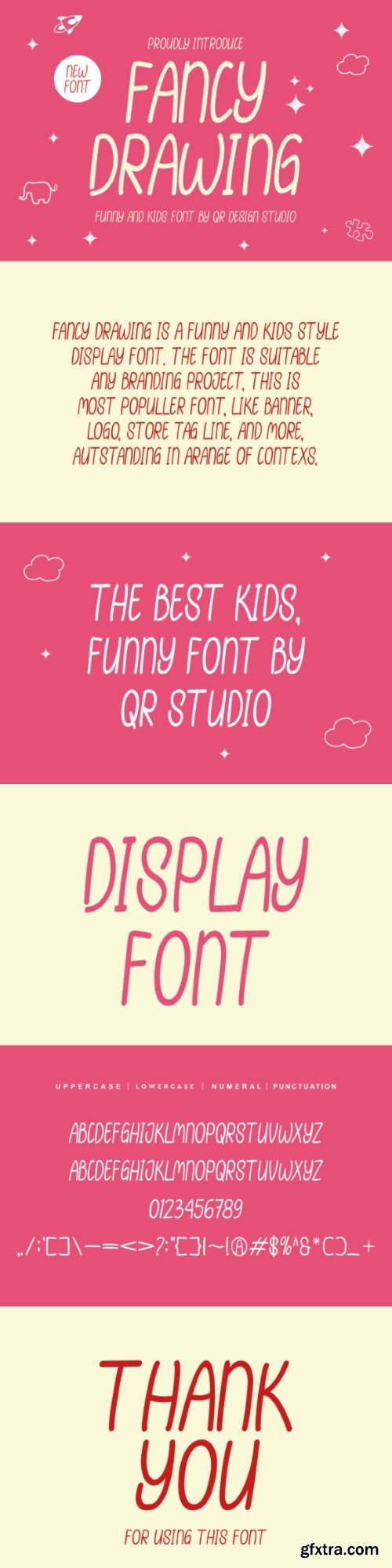
fancy drawing font
Fancy Drawing Font is a bold and authentic display font.
The font is suitable for any branding project like logo, sport, and many more.
Outstanding in a wide range of contexts.